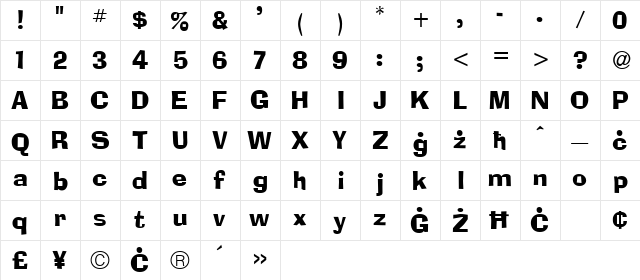
Maltadel Regular
Design Context for Maltadel Typeface
Maltadel offers clean, dependable letterforms without strong stylistic allegiance, making it a practical choice for designers who need flexibility.
Pro Tip: Use Maltadel in both headline and body roles to test its range before committing to a single application.